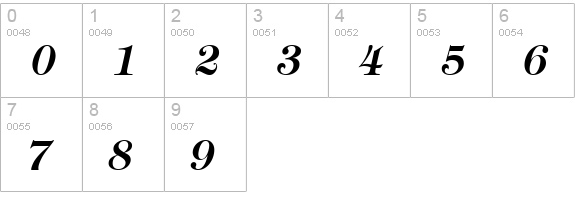
Sophisticate SSi Semi Bold Italic is a strong, high-contrast, italic variant in the Sophisticate typeface family \xE2\x80\x94 well suited to headlines, attention-grabbing titles, and strong calls-to-action.
The Sophisticate SSi Semi Bold Italic font is the epitome of elegance and refinement. With its sleek and stylish design, this font is perfect for adding a touch of sophistication to any project. The semi bold italic style adds a hint of flair, making it ideal for headings, titles, and other attention-grabbing elements. What sets the Sophisticate SSi Semi Bold Italic font apart is not only its stunning aesthetics but also its accessibility. This font is available for free download at FontsMarket.com, allowing designers, creatives, and enthusiasts alike to enjoy its beauty without any cost. This generosity makes it an invaluable resource for those seeking a high-quality font that doesn't break the bank. Whether you're designing a logo, creating a magazine layout, or simply adding some flair to your personal projects, the Sophisticate SSi Semi Bold Italic font is sure to impress. Its versatility and timeless appeal make it a go-to choice for those who appreciate the finer things in life. So, why wait? Head over to FontsMarket.com and download this remarkable font for free today. Elevate your designs with the elegance and sophistication of the Sophisticate SSi Semi Bold Italic font.